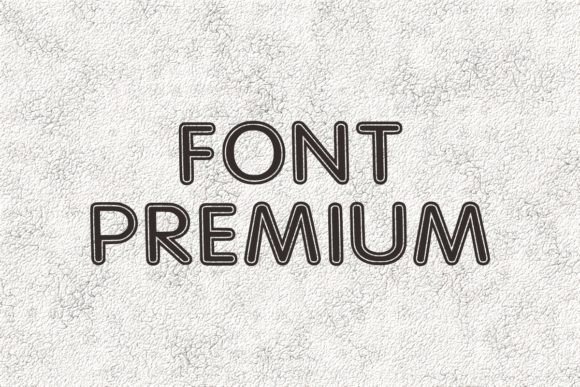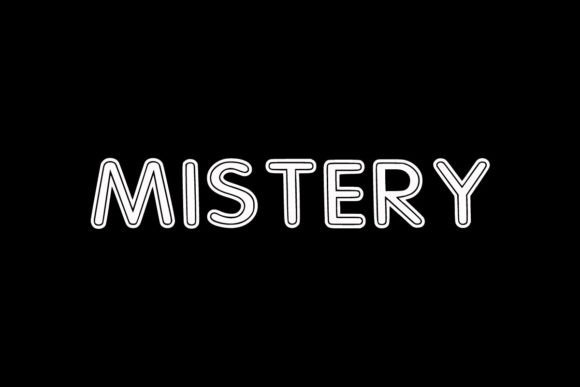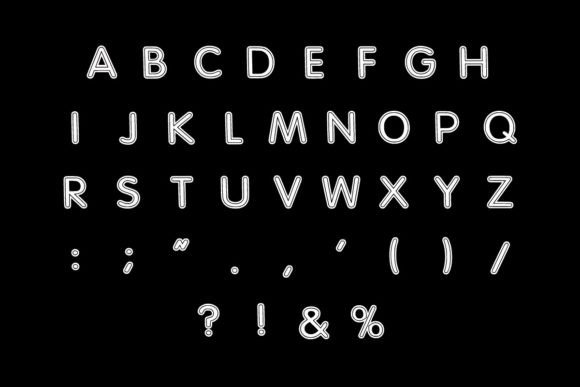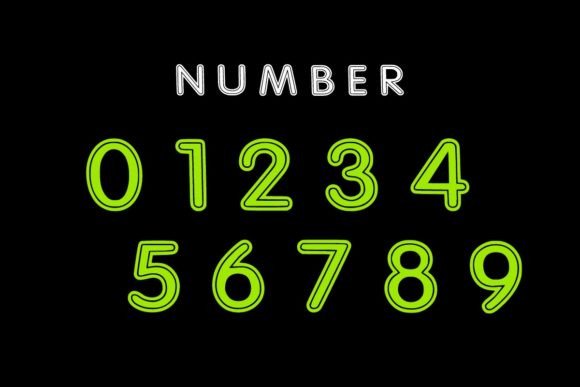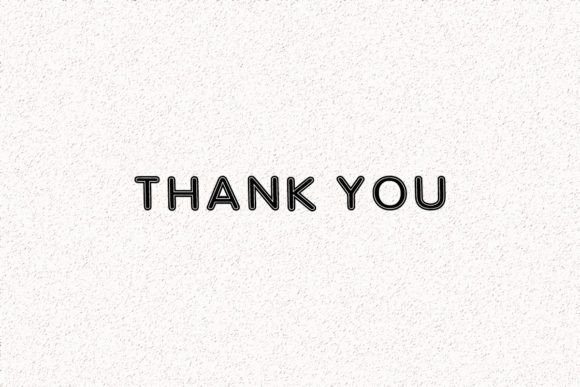
Introducing Hanzo Font: The Perfect Choice for Relaxed and Casual Designs
Are you tired of using the same old fonts for your designs? Look no further than Hanzo Font, a simple, friendly, and versatile display font that’s perfect for adding a relaxed touch to your creations. In this article, we’ll dive into the world of Hanzo Font, exploring its unique features, benefits, and uses, and why it’s a must-have for designers and crafters alike.
What is Hanzo Font?
Hanzo Font is a display font designed to bring a casual and informal vibe to your designs. Its unique style is perfect for creating eye-catching headings, titles, and captions that exude a sense of friendliness and approachability. Whether you’re working on a branding project, a website, or a craft project, Hanzo Font is an excellent choice for adding a relaxed touch.
Key Features of Hanzo Font
- Simple and Clean Design: Hanzo Font boasts a simple and clean design that makes it easy to read and understand.
- Informal Style: The font’s informal style gives it a friendly and approachable feel, perfect for designs that require a relaxed touch.
- Casual Vibe: Hanzo Font’s casual vibe makes it ideal for creating designs that are laid-back and easy-going.
- Versatile: This font is versatile and can be used for a wide range of design projects, from branding and advertising to crafting and DIY projects.
Benefits of Using Hanzo Font
So, why choose Hanzo Font for your designs? Here are just a few benefits of using this amazing font:
- Easily Readable: Hanzo Font is easy to read, even at smaller sizes, making it perfect for body text and captions.
- Unique Style: The font’s unique style sets it apart from other fonts, giving your designs a distinctive look and feel.
- Time-Saving: With Hanzo Font, you can create professional-looking designs in no time, saving you time and effort.
Uses of Hanzo Font
Hanzo Font is a versatile font that can be used for a wide range of design projects, including:
- Branding and Advertising: Use Hanzo Font to create eye-catching logos, headings, and captions that reflect your brand’s personality.
- Web Design: Add a relaxed touch to your website with Hanzo Font, perfect for headings, titles, and body text.
- Crafting and DIY Projects: Use Hanzo Font to add a personal touch to your crafting and DIY projects, such as signs, labels, and cards.
- Social Media Graphics: Create engaging social media graphics with Hanzo Font, perfect for Facebook, Instagram, Twitter, and more.
Tips for Using Hanzo Font
Here are a few tips for getting the most out of Hanzo Font:
- Experiment with Sizes: Try out different font sizes to find the perfect balance for your design.
- Pair with Other Fonts: Pair Hanzo Font with other fonts to create a unique and eye-catching combination.
- Use for Headings and Titles: Use Hanzo Font for headings and titles to add a relaxed touch to your designs.
In conclusion, Hanzo Font is a simple, friendly, and versatile display font that’s perfect for adding a relaxed touch to your designs. With its informal style, casual vibe, and easy readability, Hanzo Font is a must-have for designers and crafters alike. Whether you’re working on a branding project, a website, or a craft project, Hanzo Font is an excellent choice for creating eye-catching headings, titles, and captions. So why wait? Give Hanzo Font a try today and take your designs to the next level!